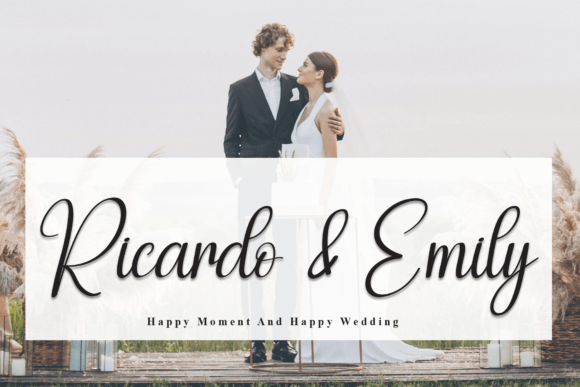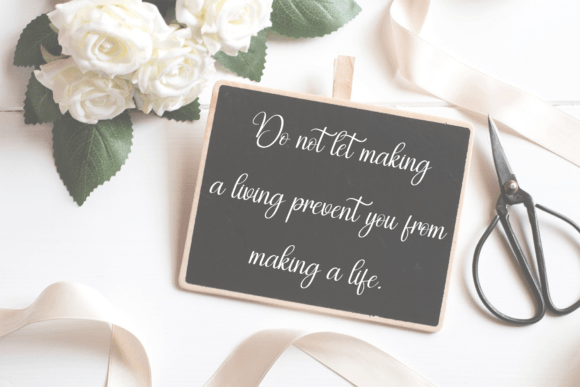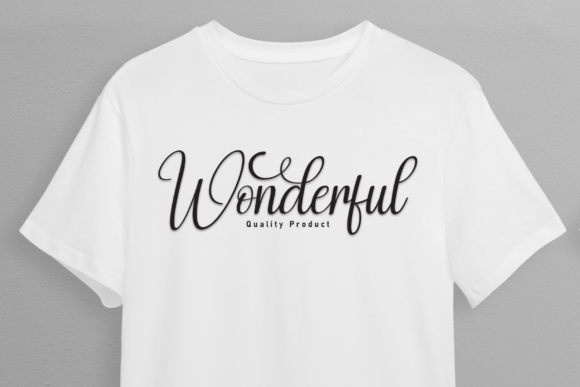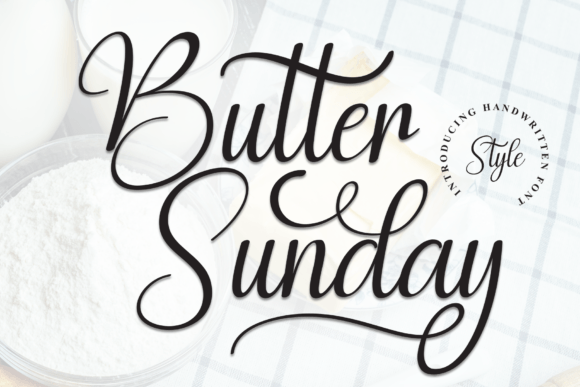
Introduction to Butter Sunday Font
Butter Sunday is a lovely and timeless handwritten font.
Why Choose Butter Sunday Font?
Butter Sunday Font offers exceptional quality and versatility, making it a valuable addition to your design toolkit. Whether you’re creating for personal projects or commercial use, Butter Sunday Font delivers professional results.